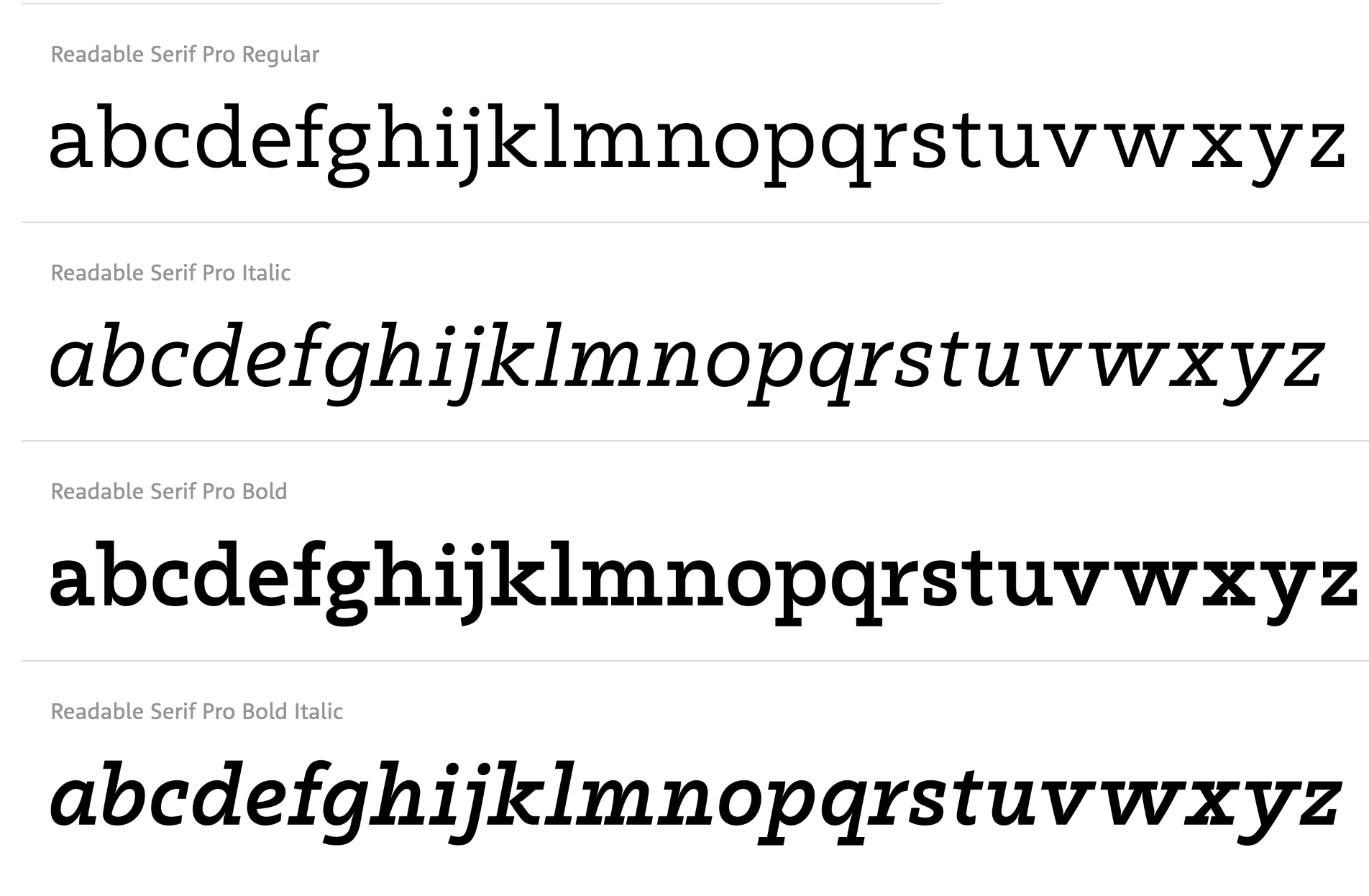
The Rise Of Readable Serif Fonts In 2023
It's the start of a new year, and with that comes a whole new set of trends in the world of digital typography. One of the most prominent trends of 2023 is the rise of readable serif fonts. Serif fonts have been around for centuries, but this year marks a new era in which they are becoming the go-to choice for designers and web developers alike. So what is it about serifs that make them so popular?
Making Text Easier to Read
Serif fonts are designed with a greater emphasis on readability. The serifs, or little lines, at the end of each letter help guide the eye from one letter to the next. This makes it easier to read large amounts of text without getting lost or overwhelmed. This is especially important for websites, where users are often presented with a lot of information at once. By making the text easier to read, it's much more likely that users will stay on the page for longer and take in all the content.
Aesthetic Appeal
Serif fonts are also incredibly aesthetically pleasing. The serifs add a certain level of sophistication and elegance to any text, making it more visually appealing. This makes them a great choice for brands and businesses looking to add a touch of class to their website or printed materials. Additionally, serif fonts are incredibly versatile and can be used in a variety of contexts, from web design to branding materials and beyond.
Wide Variety of Fonts
Another great thing about serif fonts is the sheer variety available. There are hundreds of different fonts to choose from, so you're sure to find one that fits your needs. From classic and elegant to modern and bold, there's a serif font for every occasion. Additionally, many of these fonts are now available in both web-friendly and print-friendly formats, giving you even more options to choose from.
Overall, serif fonts are quickly becoming the go-to choice for designers and developers in 2023. With their emphasis on readability and aesthetic appeal, it's no wonder why they are so popular. Additionally, their wide range of font styles ensures that you can find the perfect font for your next project. So if you're looking for a font that is both beautiful and easy to read, look no further than the ever-growing selection of readable serif fonts.